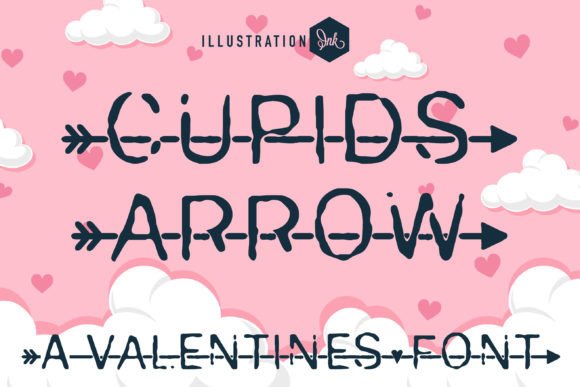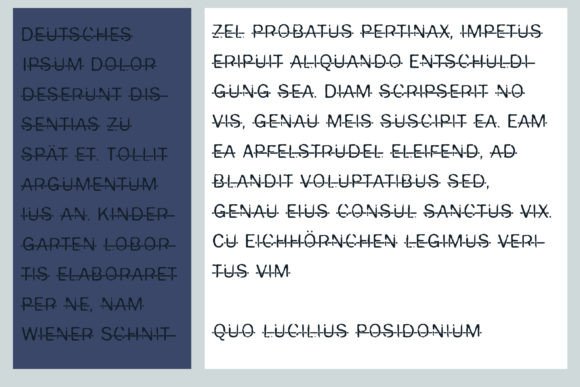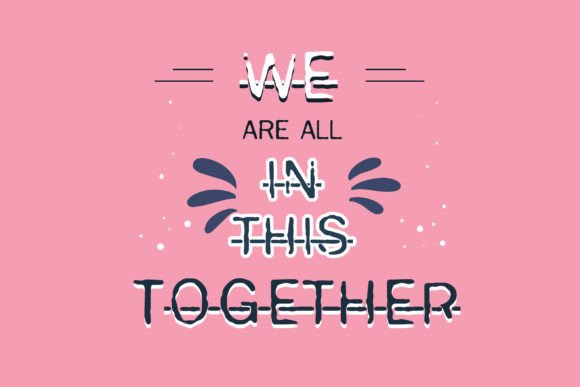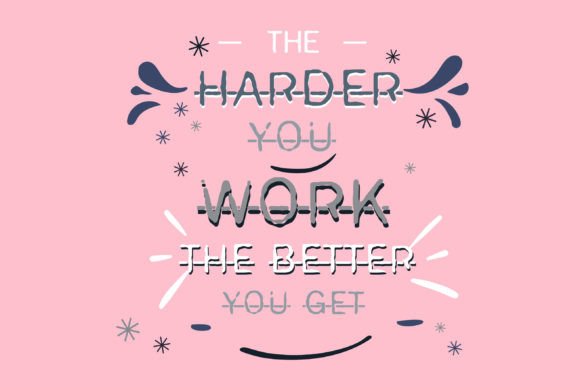
Cupid’s Arrow Font
About the Cupid’s Arrow Font
We are excited to introduce Cupid’s Arrow Font, a must-have typeface for any serious designer. This sans serif font features an arrow “shaft” shot through each lowercase letter. Use great than and less than to make arrowhead and fletching. Use the hyphen or equal sign to add a continuous straight arrow piece.
No matter the topic, this font will be an incredible asset to your fonts’ library, as it has the potential to elevate any creation.
Cupid’s Arrow is best suited for headlines, short slogans, and branding elements where its playful yet bold character can shine. It works exceptionally well in posters, social media graphics, and packaging for products targeting a younger, more energetic demographic. Avoid using it for body text or long paragraphs; its distinctive design makes extended reading difficult.
The font’s personality is undeniably playful and slightly mischievous, lending itself well to projects needing a touch of whimsy and visual interest. Its inherent boldness makes it unsuitable for delicate or refined projects.
Pairing Cupid’s Arrow with a clean sans-serif like Montserrat for body text provides a strong contrast and maintains readability. For a more sophisticated look, consider pairing it with a classic serif like Garamond or a geometric sans-serif like Futura. These combinations balance the arrow font’s playful energy with a touch of formality or modern elegance.